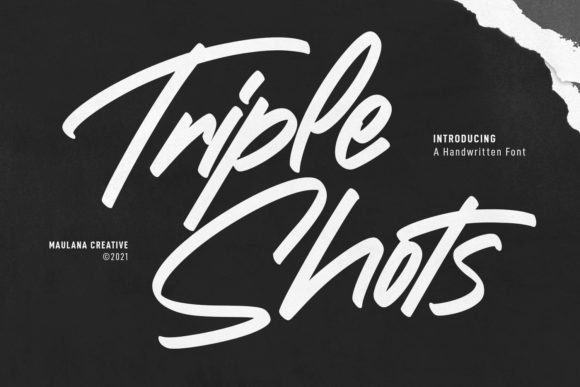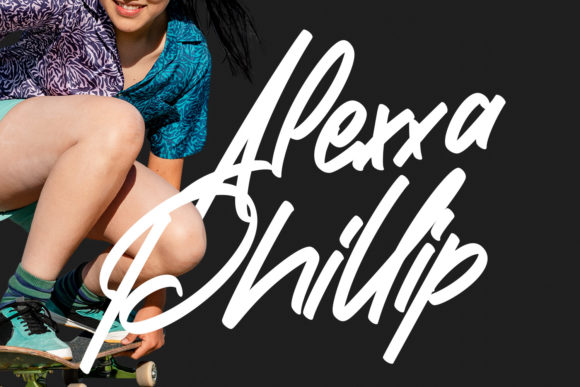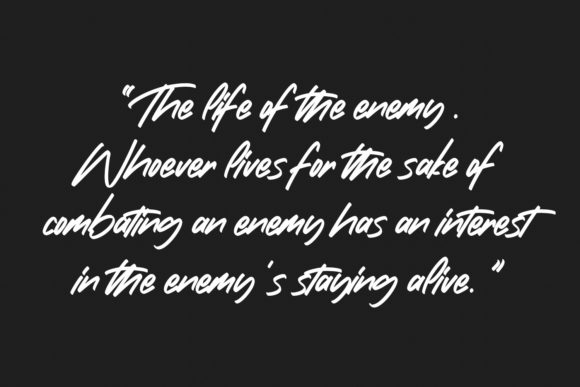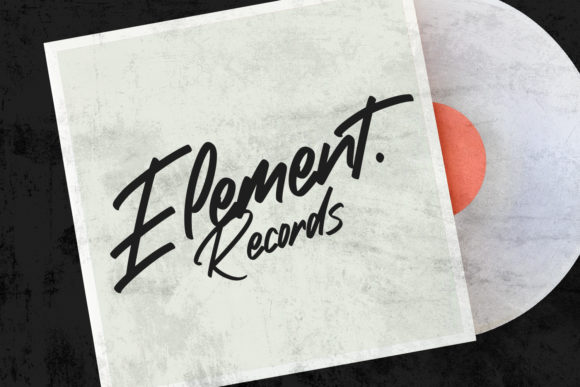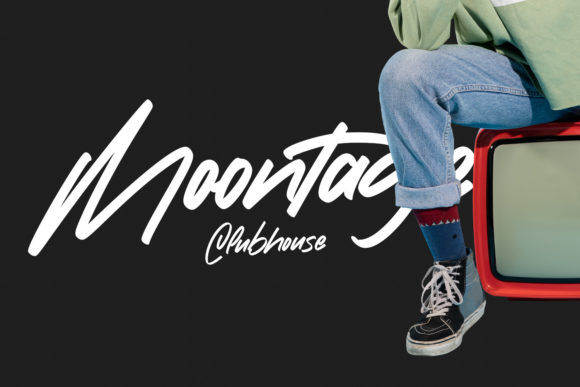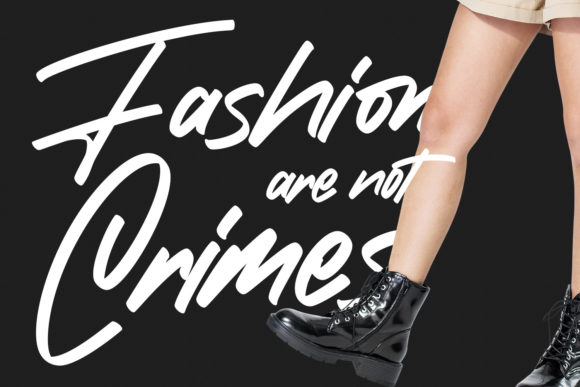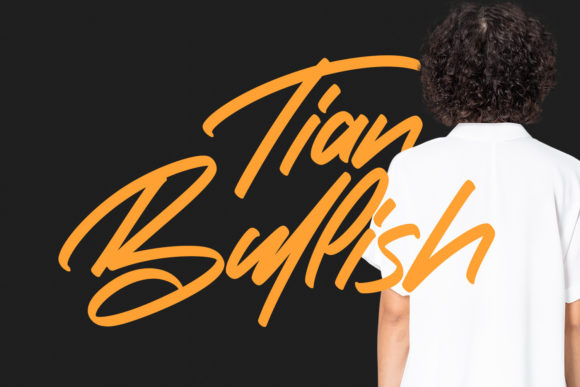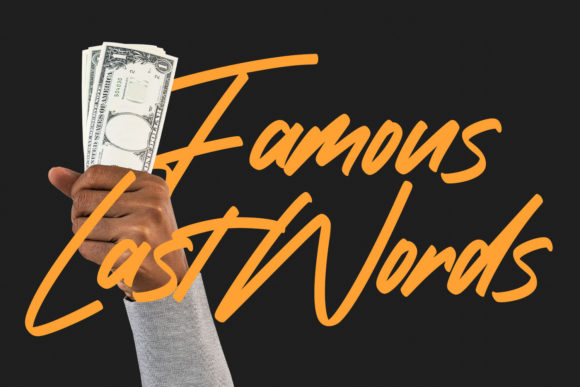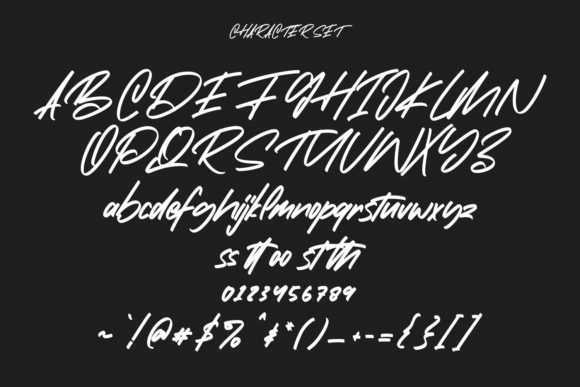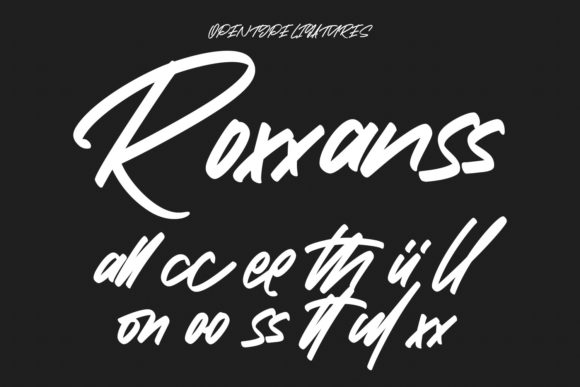
About Triple Shots Handwritten Font
Triple Shots is a casual handwritten font perfect for logo design, social media posts, movie and book titles, and many more! Make stunning work with Triple Shots font!